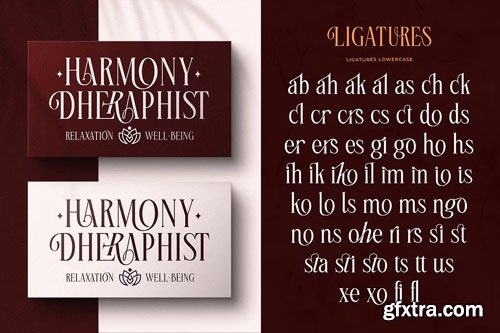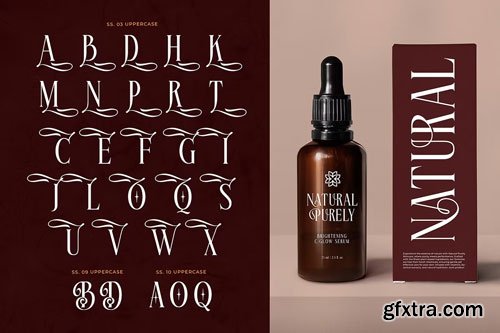
CreativeMarket - Brosena Typeface
A perfect blend of classic elegance and modern design, Brosena Typeface is a versatile and sophisticated serif font designed to captivate. Whether you’re working on high-end branding, editorial layouts, or creative projects that demand a luxurious touch, Brosena brings unparalleled elegance to the table. This typeface features two beautifully crafted styles—Regular and Italic—giving you the freedom to mix and match for diverse design needs. Each style is carefully designed with clean lines, subtle contrasts, and soft curves, making Brosena equally suitable for formal applications and creative expressions.